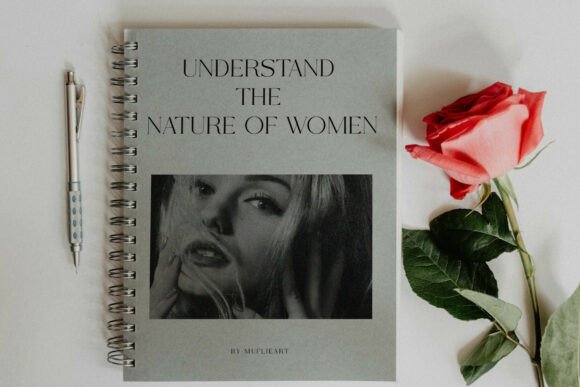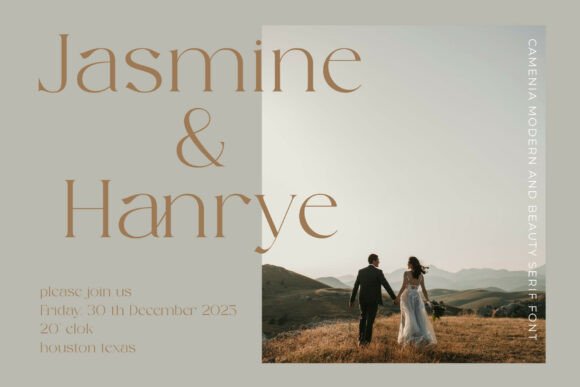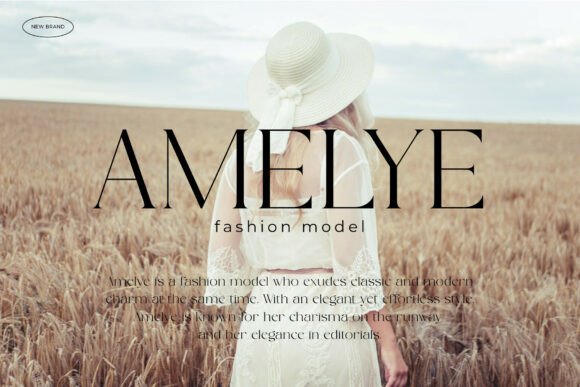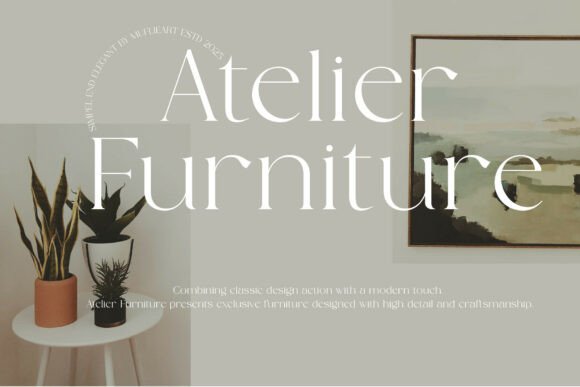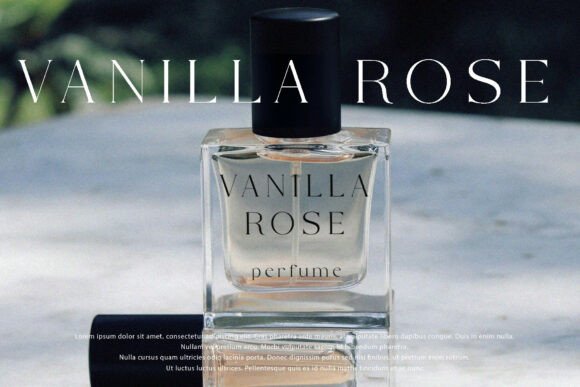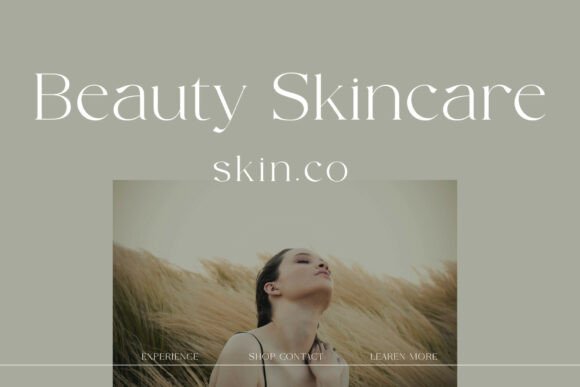
Introduction to Camenia Font
Infuse your designs with the ethereal grace of Camenia, a modern beauty serif that balances slender silhouettes with soft, organic terminals.
This typeface features high-contrast letterforms with elongated ascenders and unique, curved apertures that create a lyrical and approachable rhythm Its refined posture and airy negative spaces provide a sophisticated aesthetic, making it an extraordinary choice for luxury lifestyle branding, artisanal wellness packaging, high-end editorial titles, and chic social media headers.